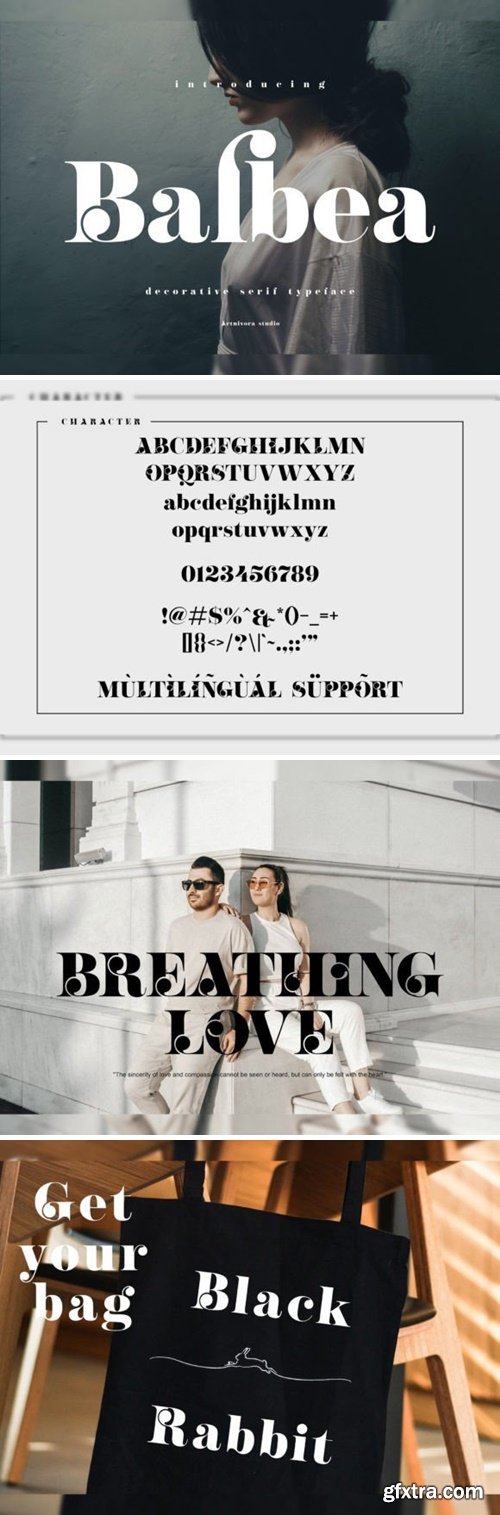
芭贝娅 - 装饰 Serif 字体
Introducing Balbea, a simple and decorative serif font. So perfect for you who needs a typeface for logo designs, magazine, social media, brochure, and many more.